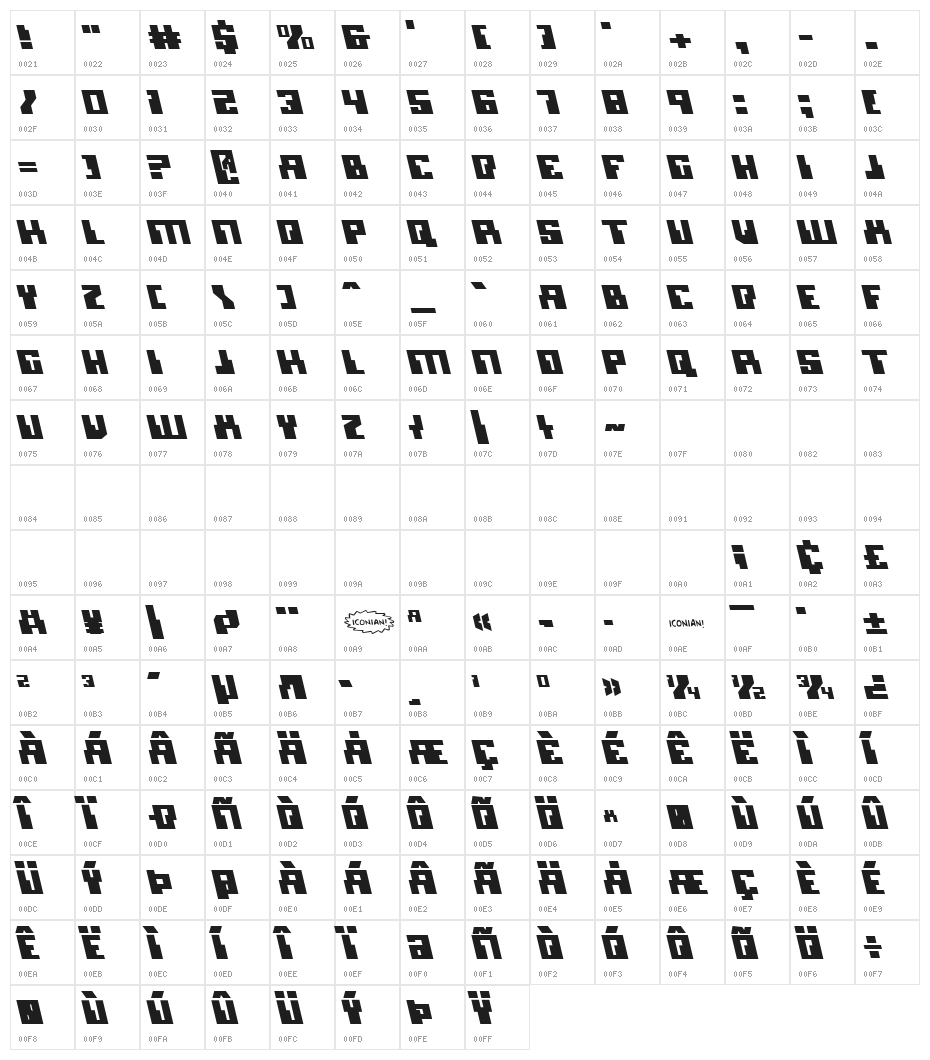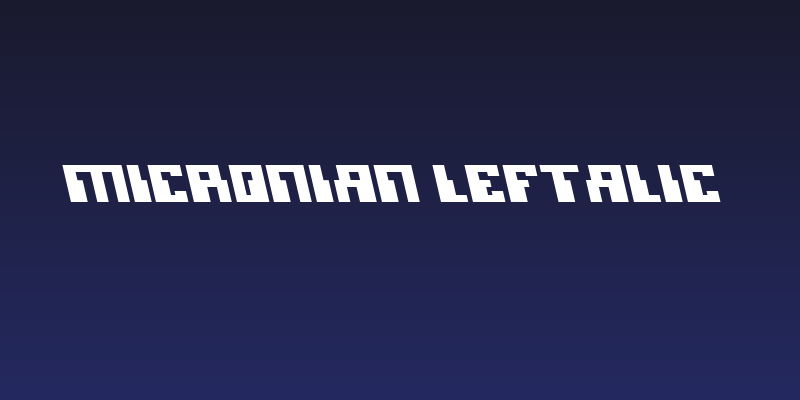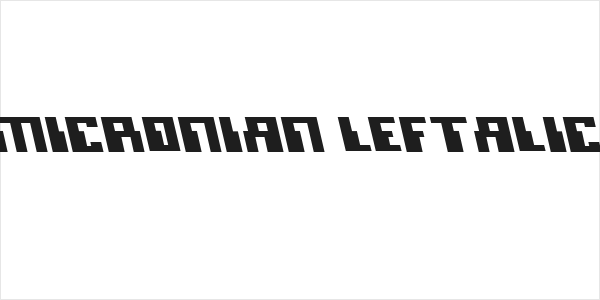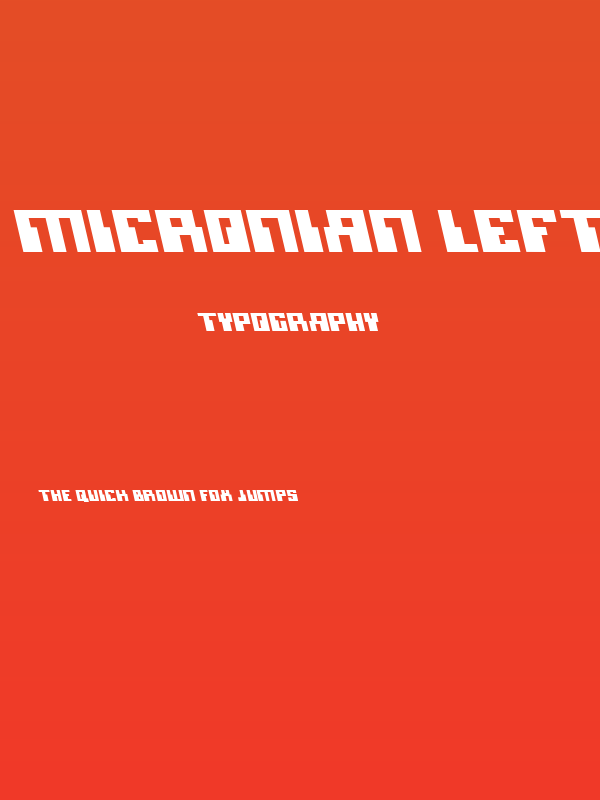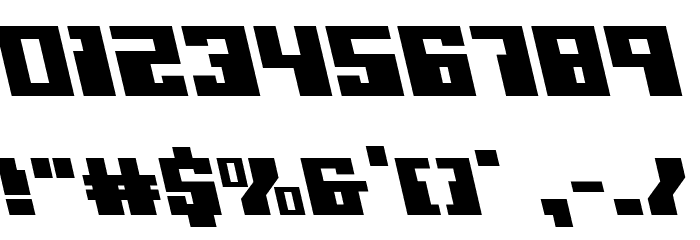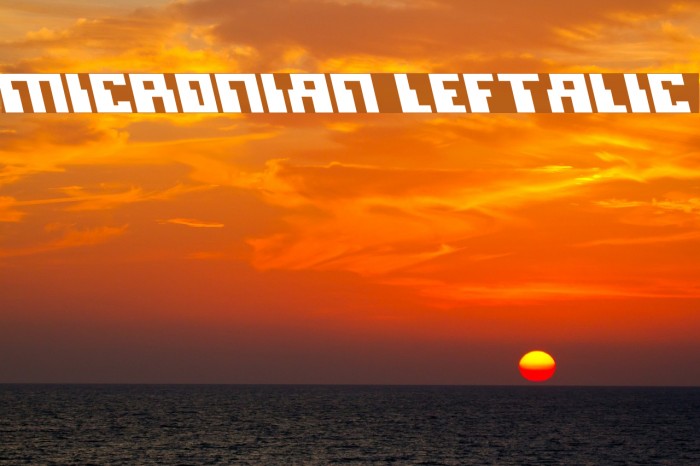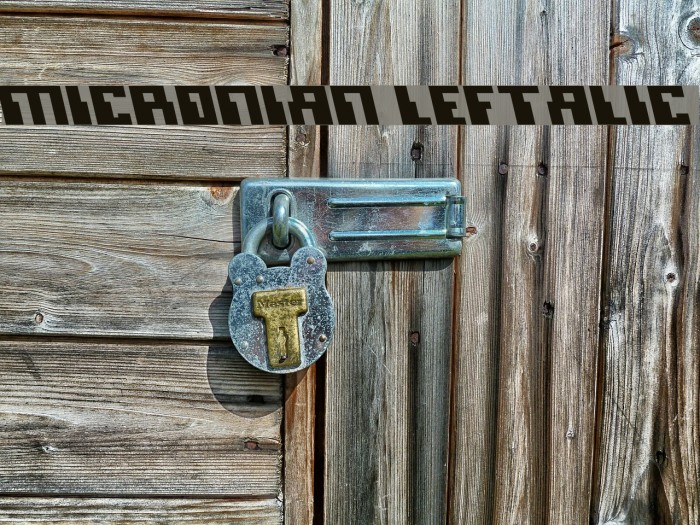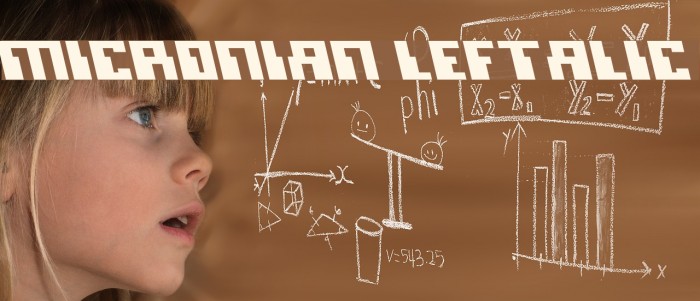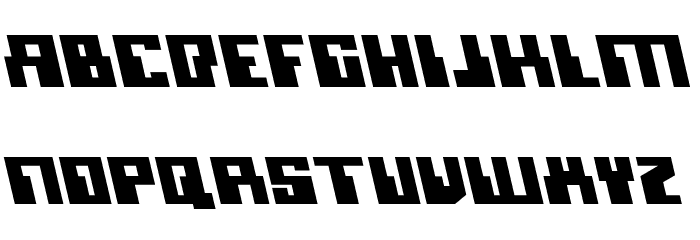
Micronian Leftalic Font
Micronian Leftalic Description
This font features a bold and angular design with a futuristic and geometric aesthetic. Each character is crafted with sharp edges and a blocky structure, giving it a distinct and modern appearance. The uppercase and lowercase letters maintain a consistent style, with uniform stroke thickness and a slight slant to the left, enhancing its dynamic look. The numerals and special characters follow the same design principles, ensuring a cohesive visual identity across all elements. The font's unique style makes it stand out, suitable for projects that require a strong and impactful visual presence.
| Proposed Projects | Ideal for sci-fi themed projects, video game titles, tech branding, and modern posters. |